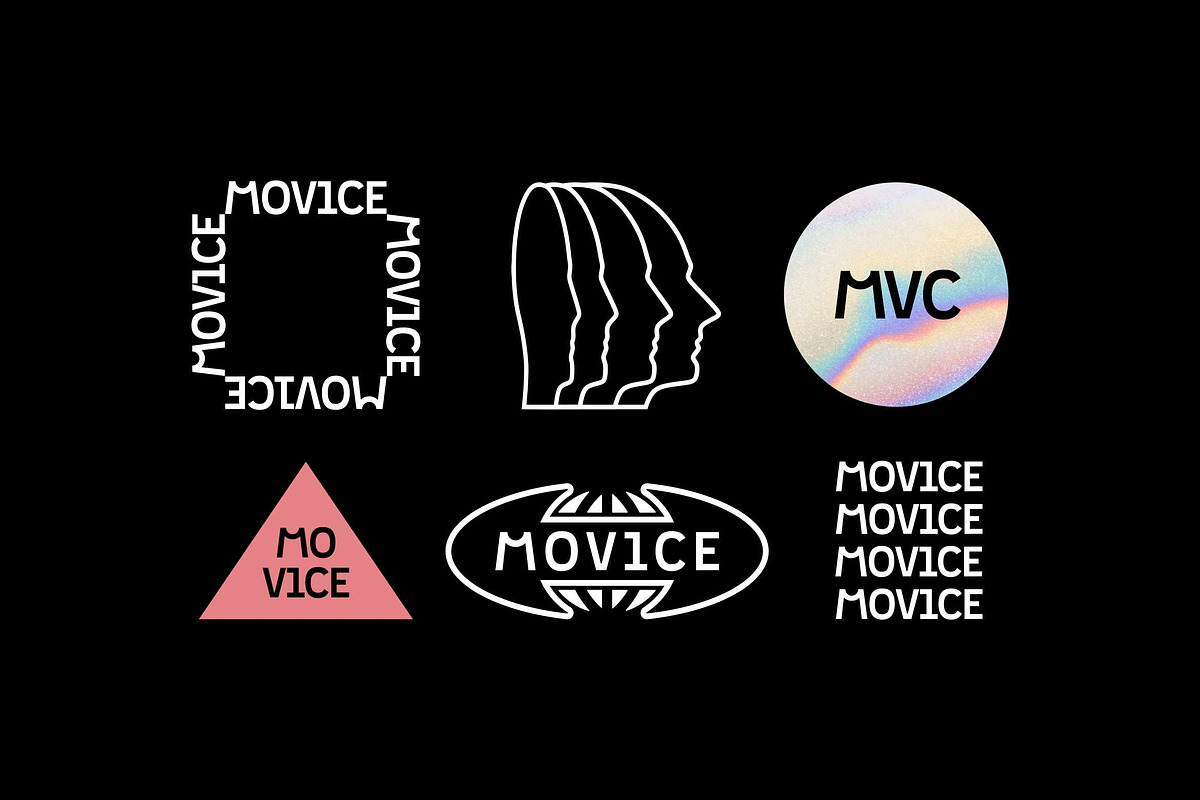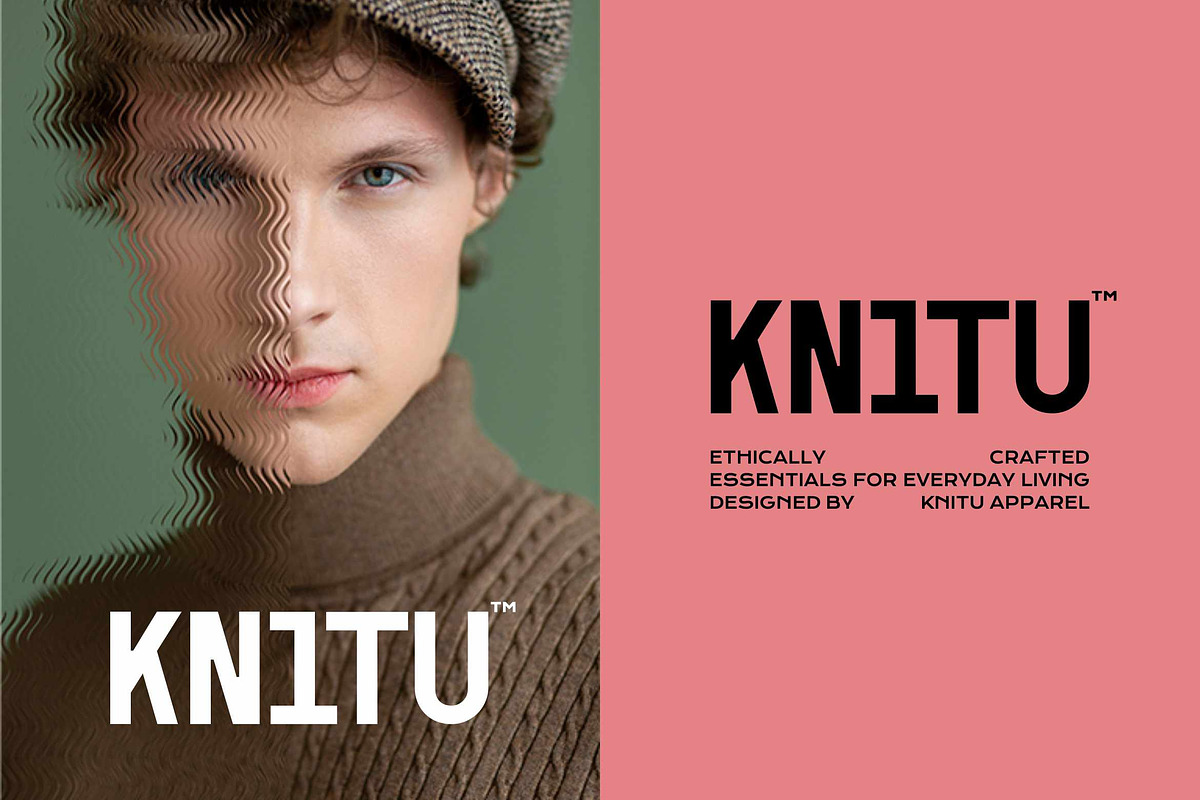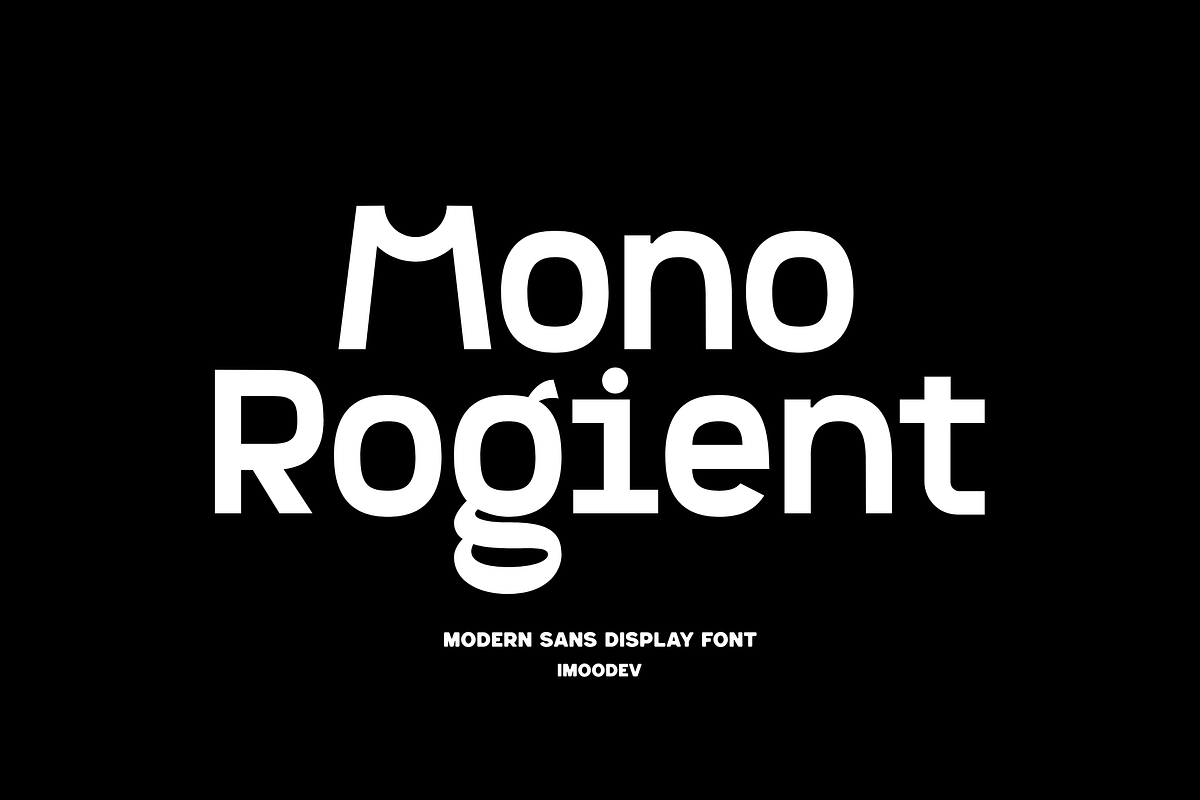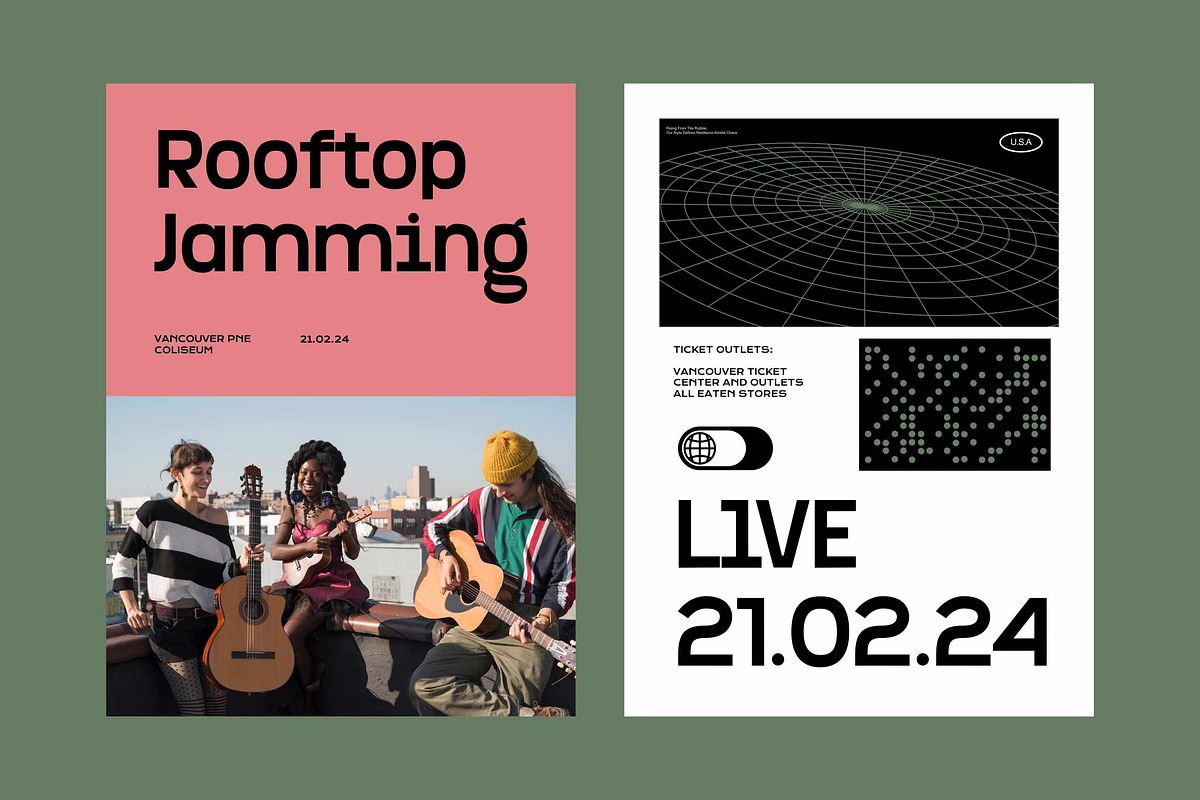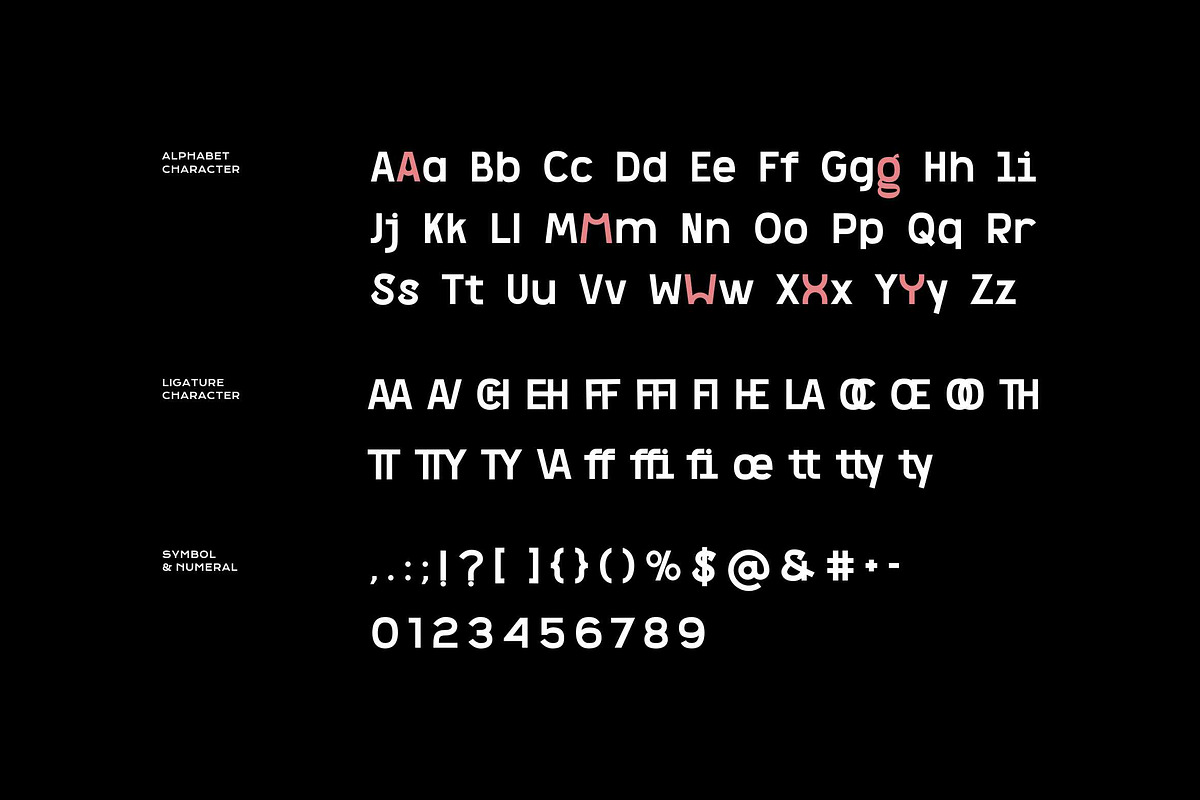
Mono Rogient - Modern Sans Display
Mono Rogient is a modern sans display font with a modular twist, blends monospaced geometry with expressive quirks.
Ideal for fashion, music, tech-forward identities, creative branding, editorial headlines, futuristic theme, poster, editorial design, and more